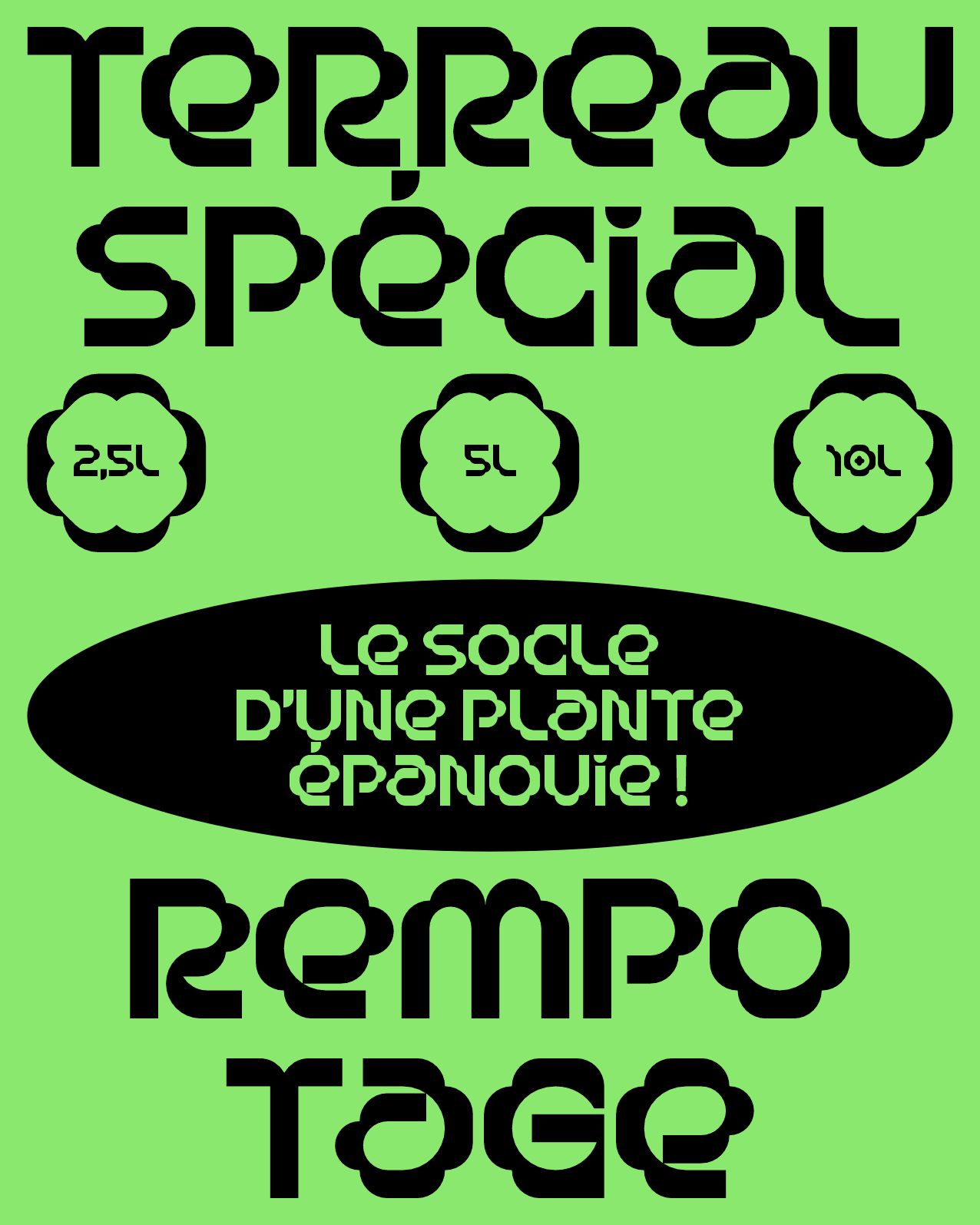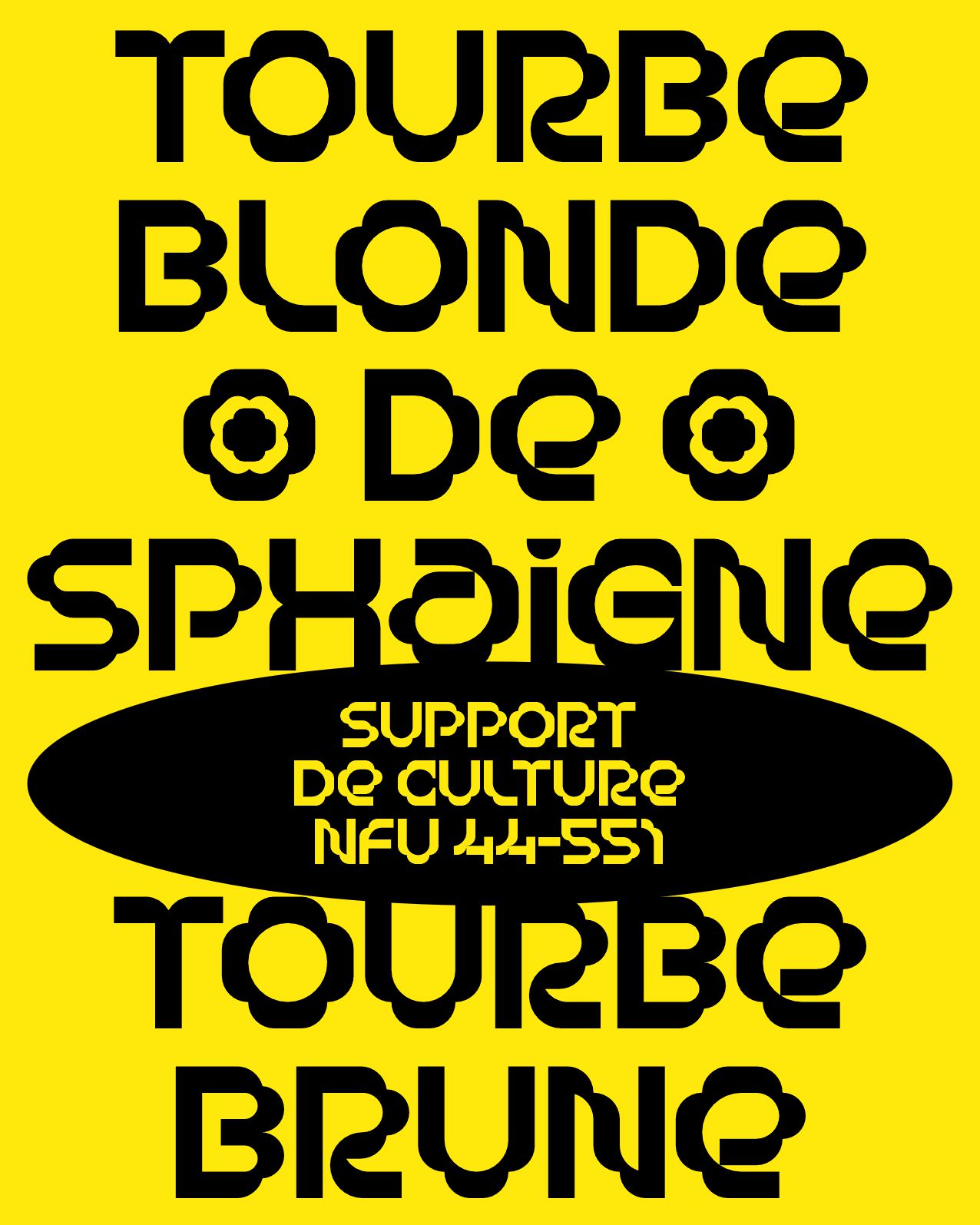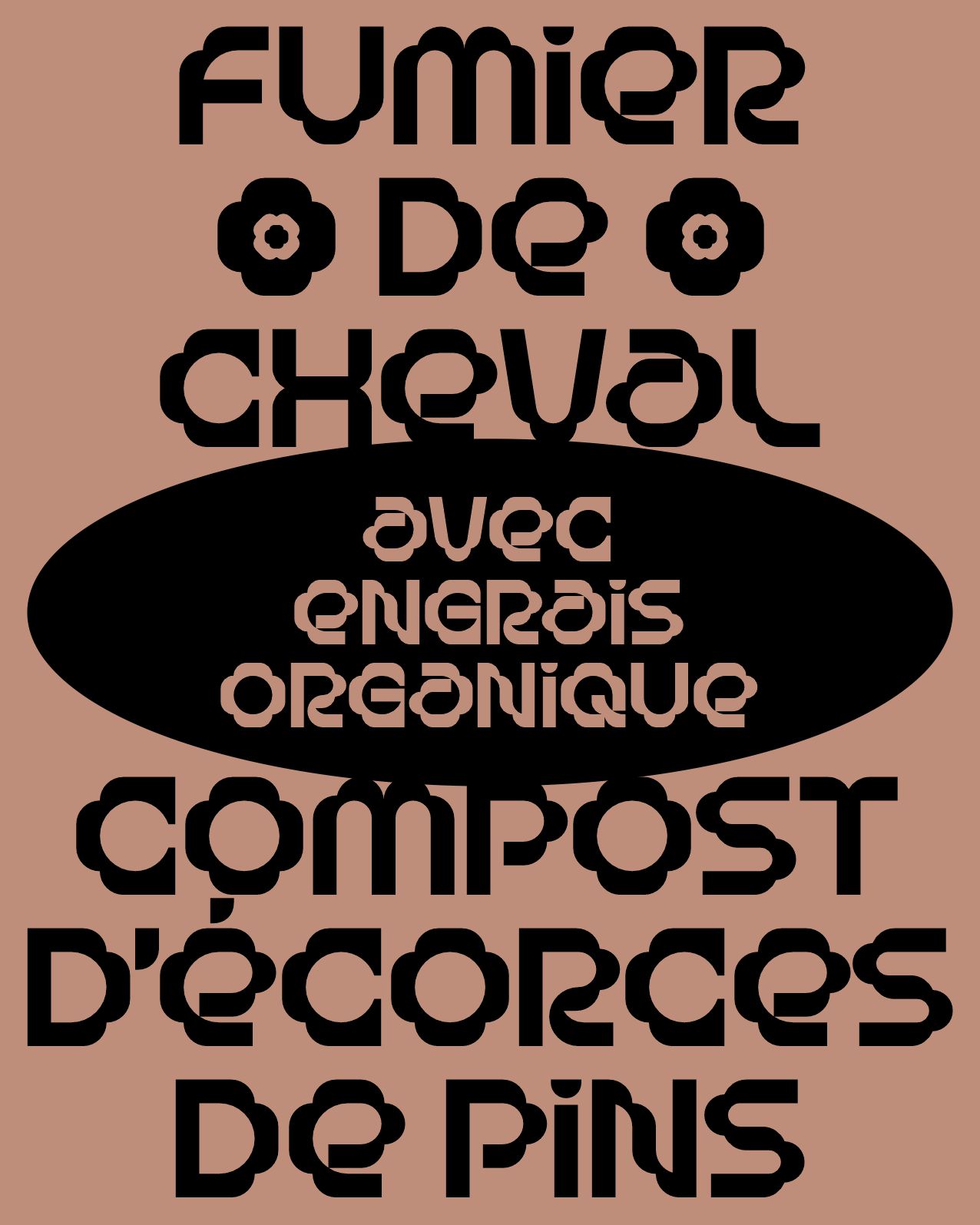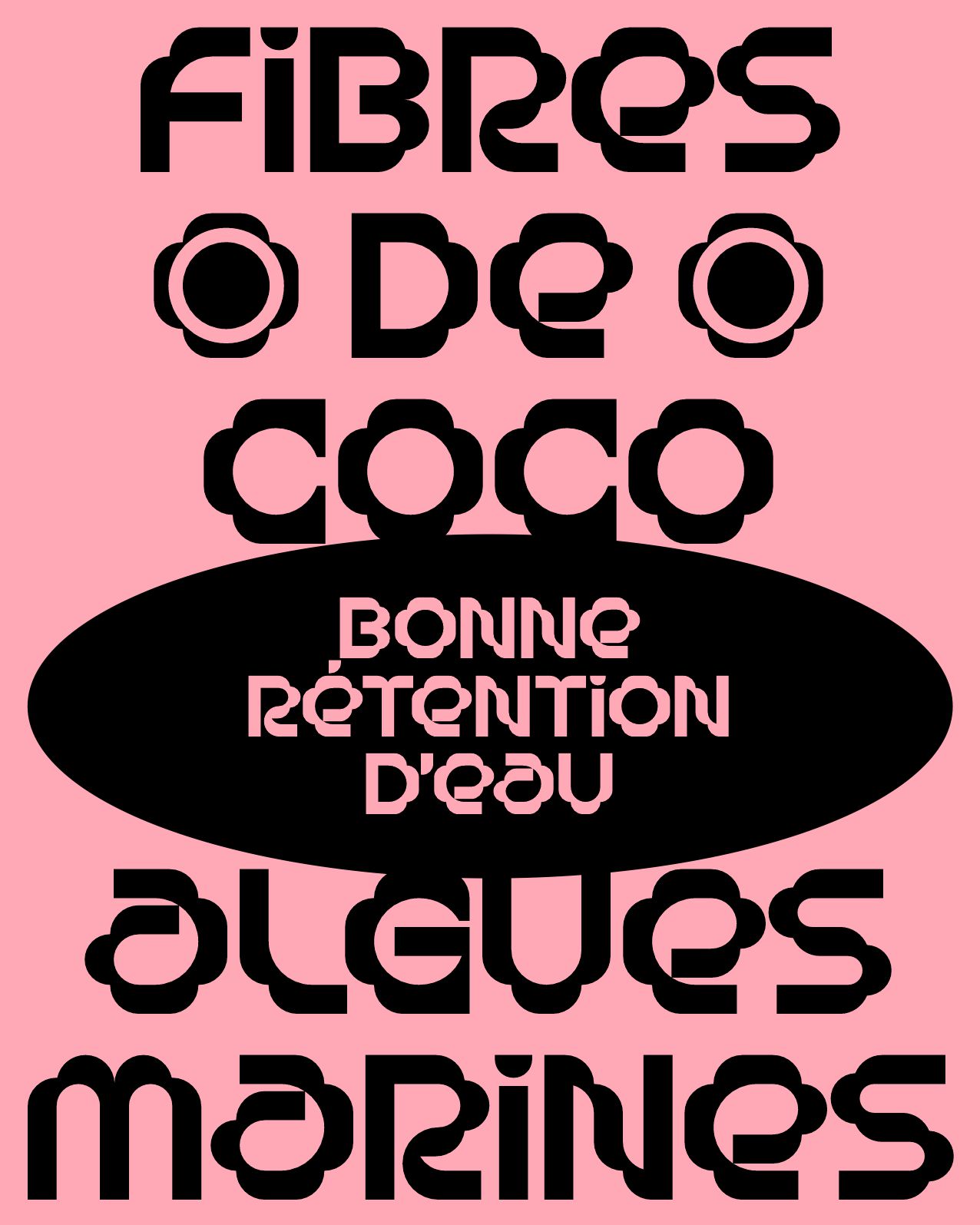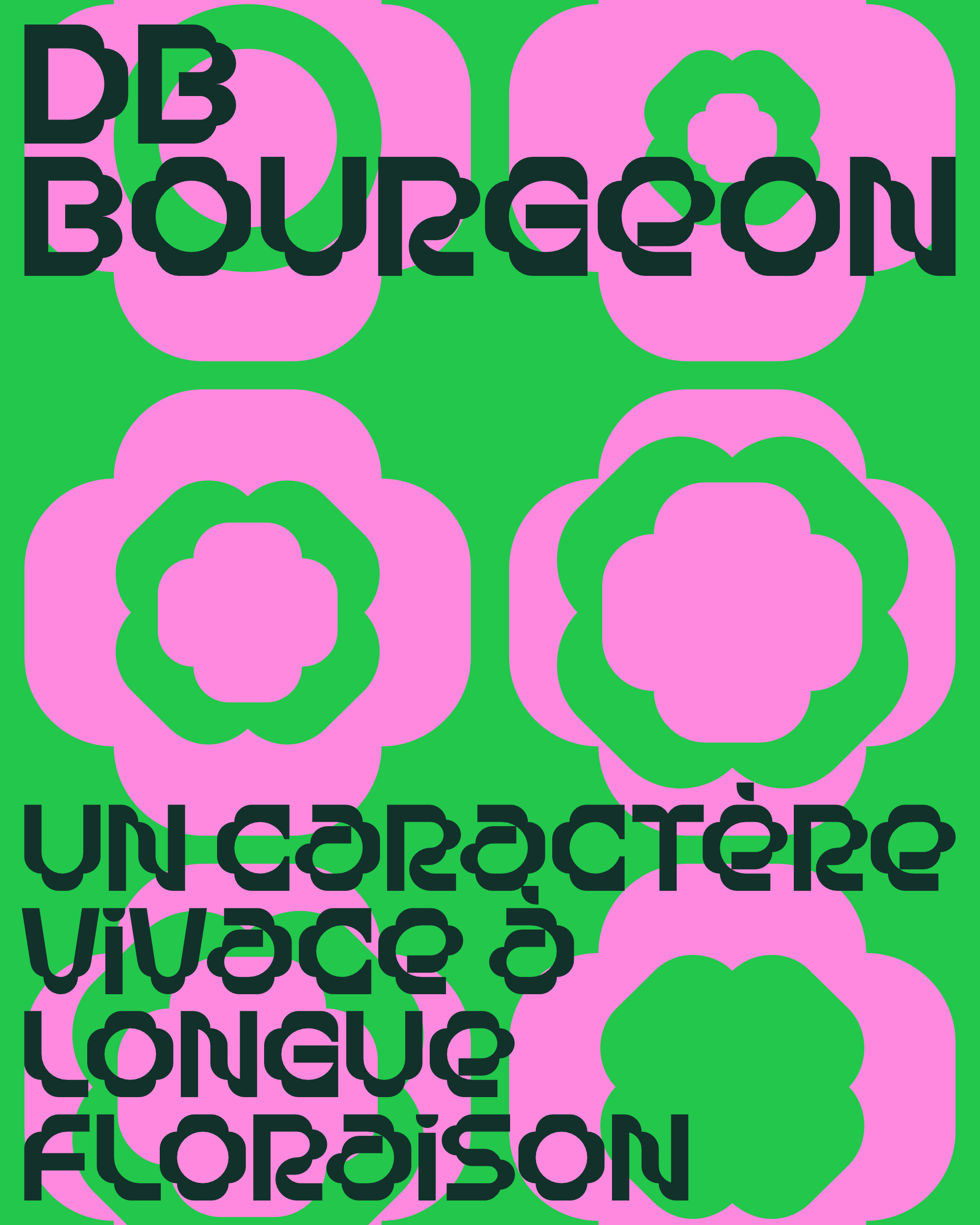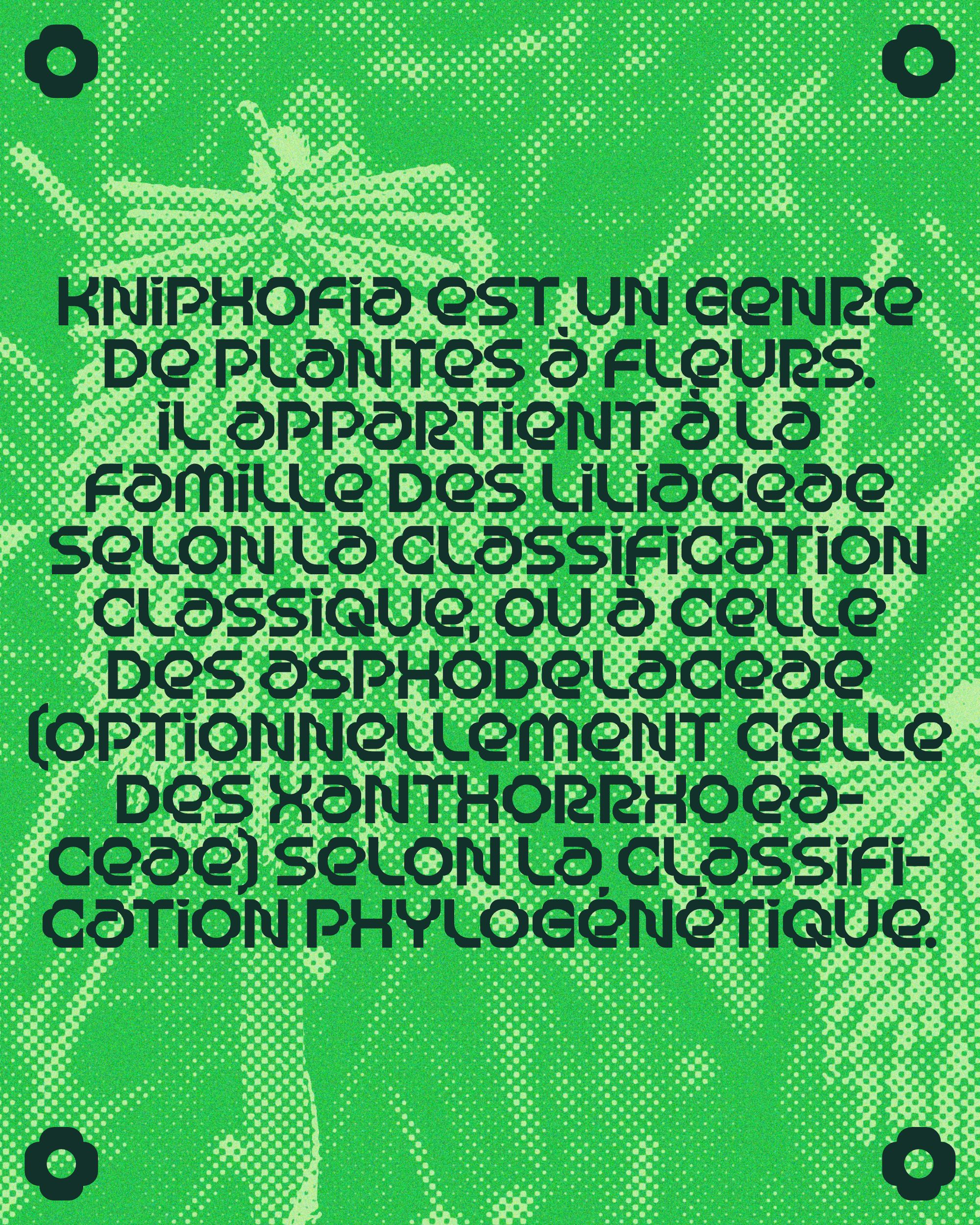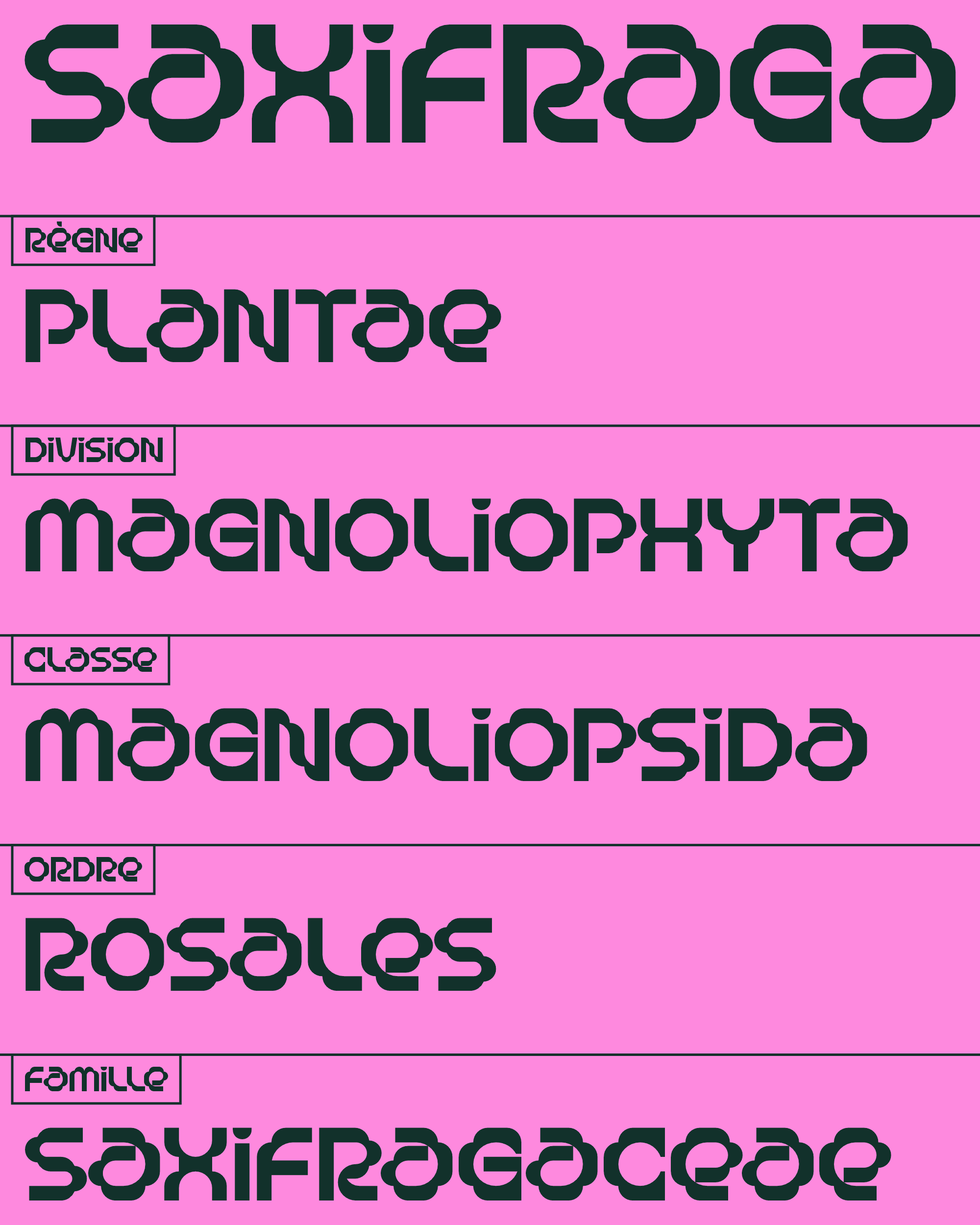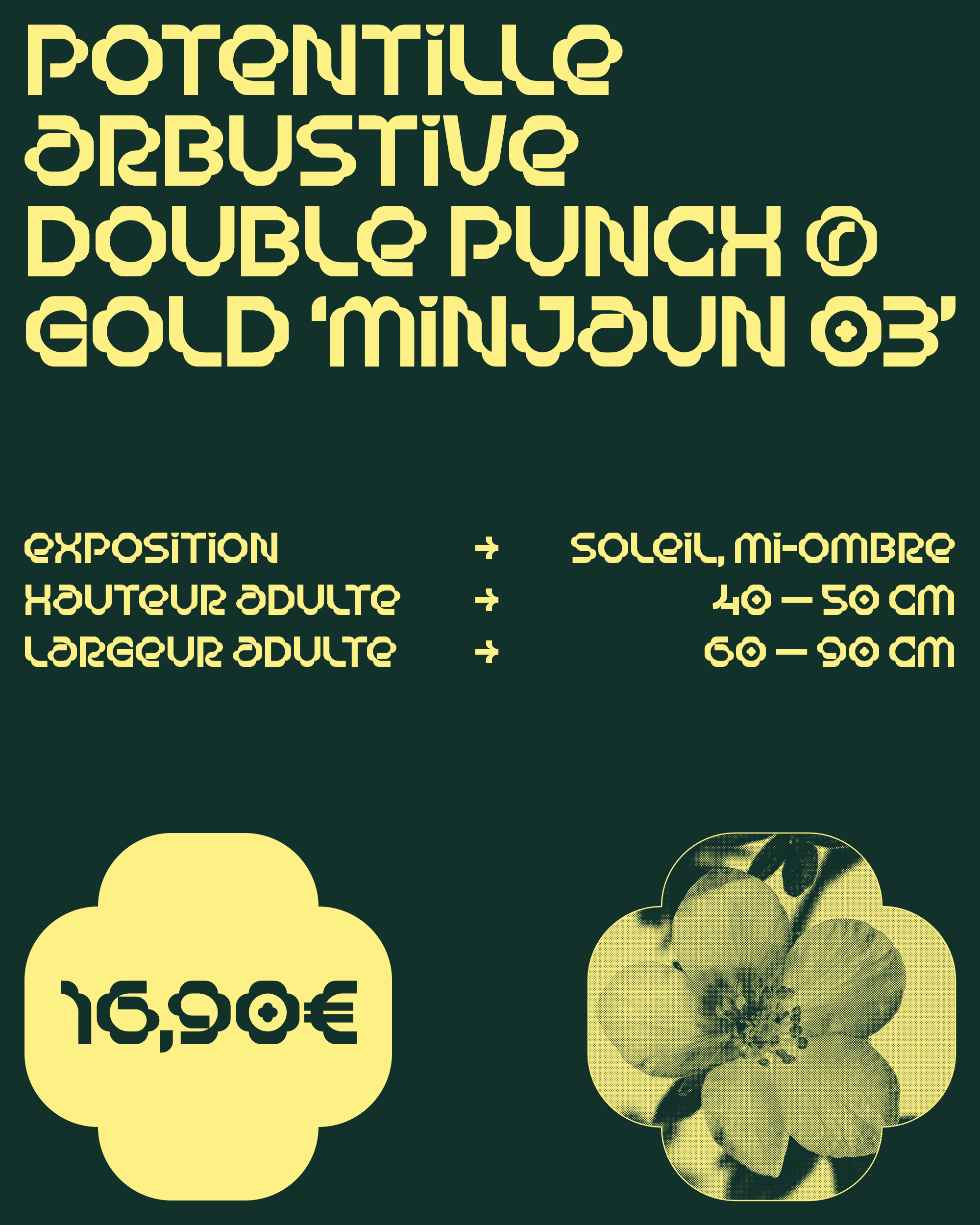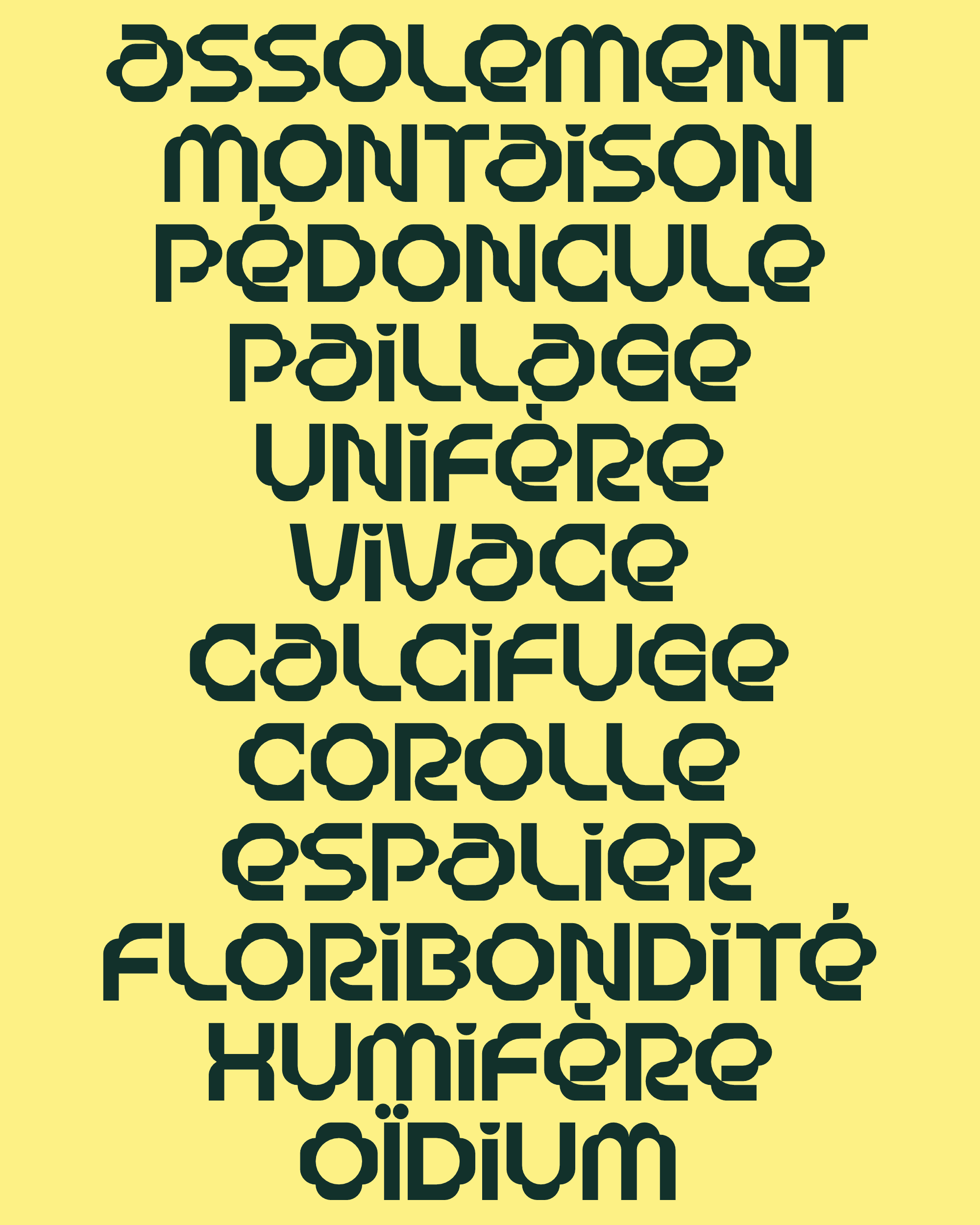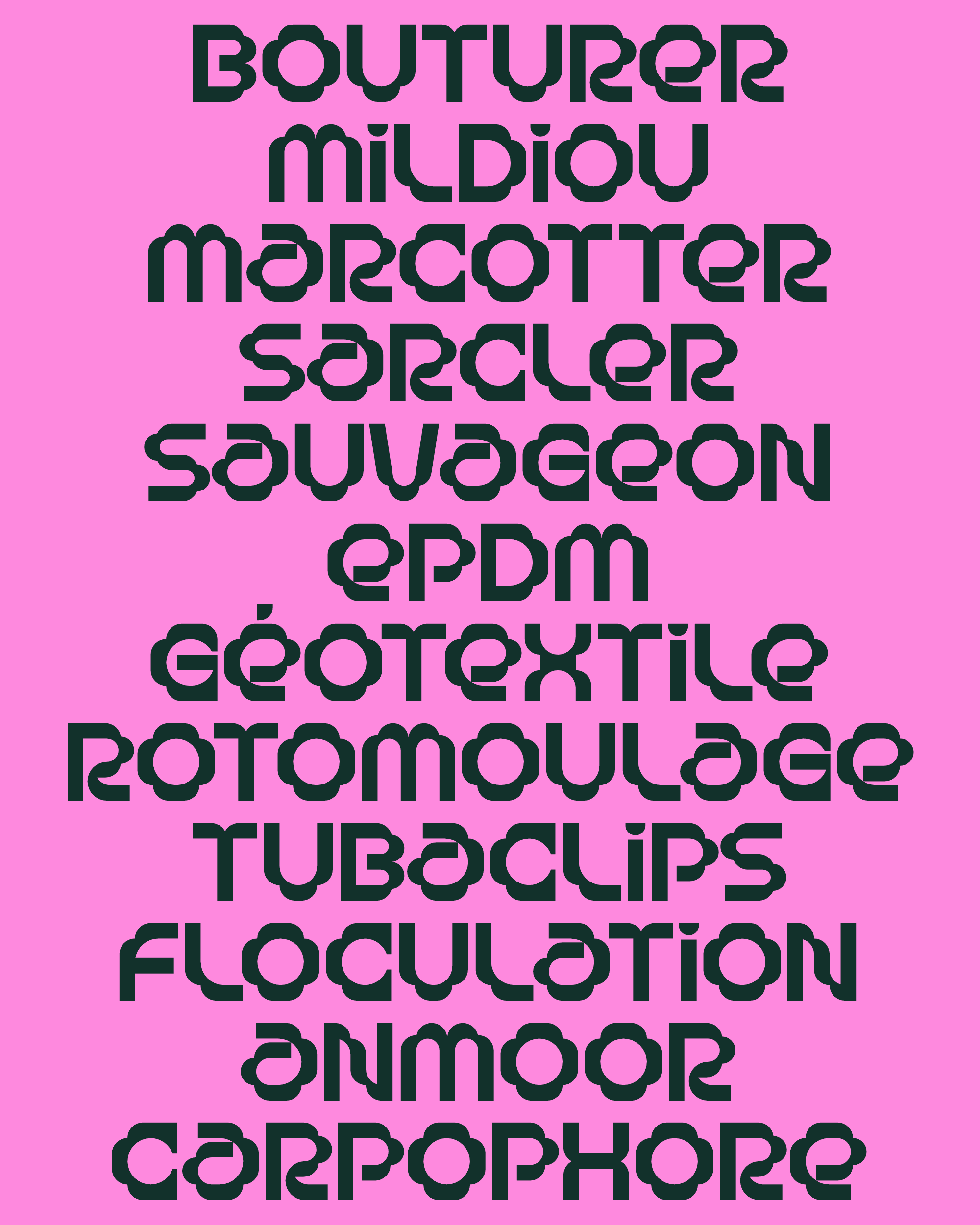
Bourgeon
Bourgeon is a typeface originally developed for the visual identity of Grow Deal, Toulouse’s largest vertical farm. With its rigorous bone structure and a touch of futurism, it can also be more playful thanks to its budding structure. This long-flowering perennial has a surprising property: it repels weeds.